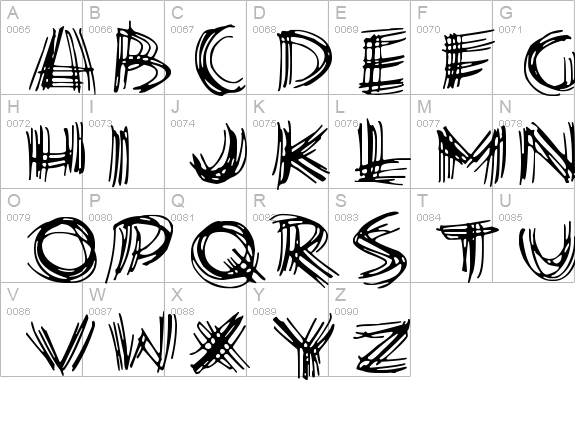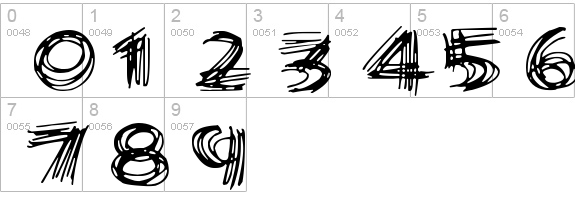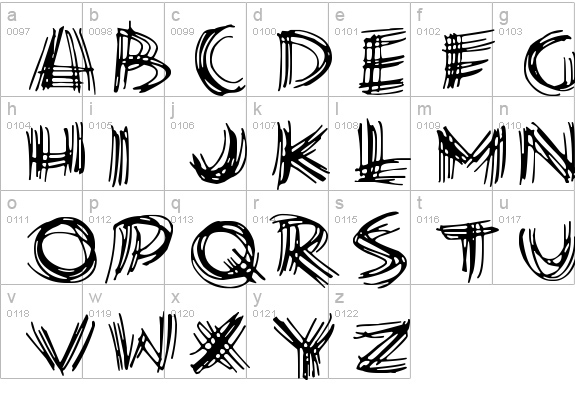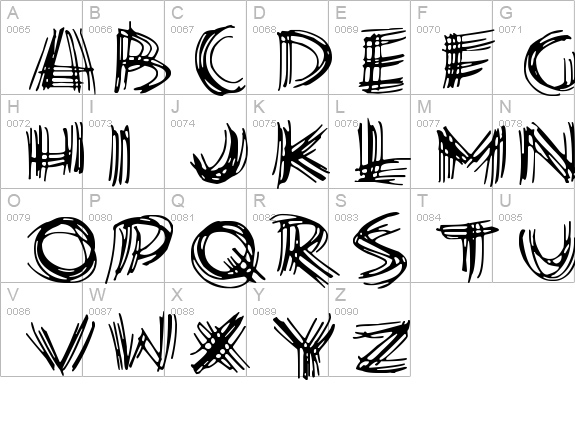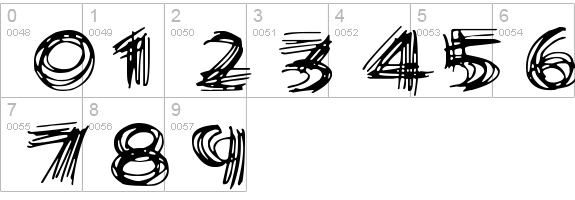
Scribble Lines Font Details
Scribble Lines font is a whimsical and playful typeface that brings a unique hand-drawn feel to your designs. With its quirky and irregular lines, this font adds a fun and artistic touch to any project. Whether you're creating greeting cards, posters, or social media graphics, Scribble Lines font is sure to make a statement.